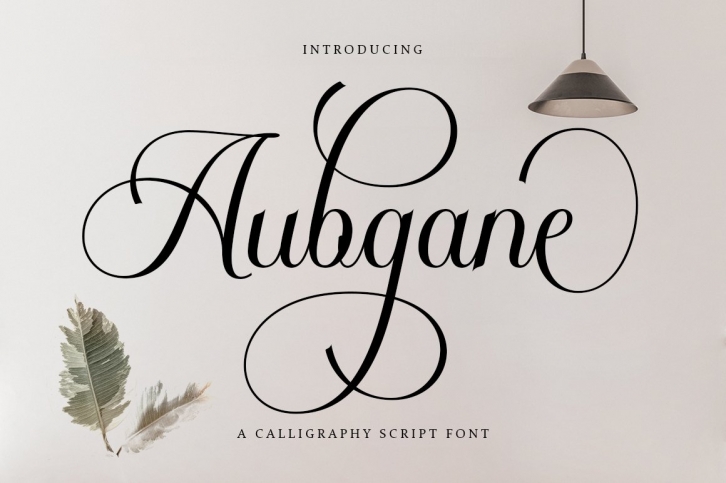
Aubgane is a beautiful font that was designed by Pista Mova. It's a great choice for designers and creatives who need such a font. It was released on October 14, 2022 and the file size is 7.69 MB. Aubgane may give a more youthful, expressive and casual look to your project. It is a very beautiful, refined, elegant, and high-quality font.